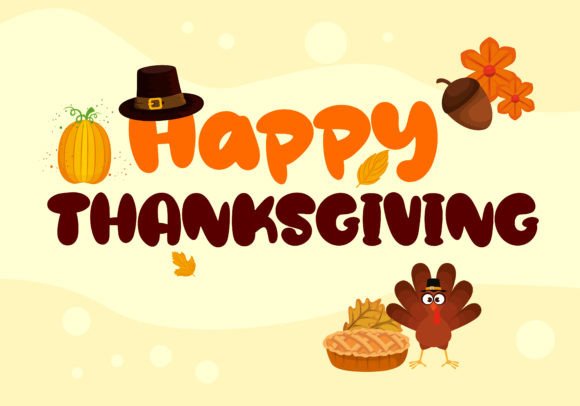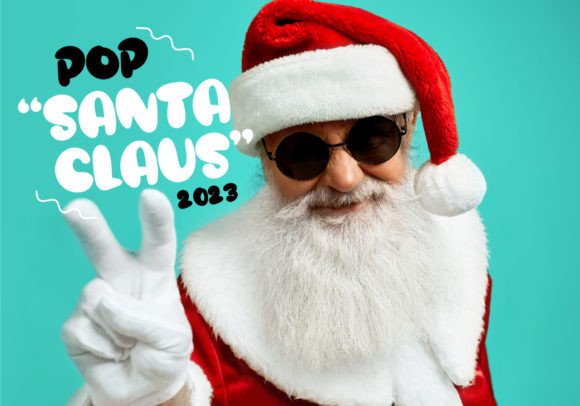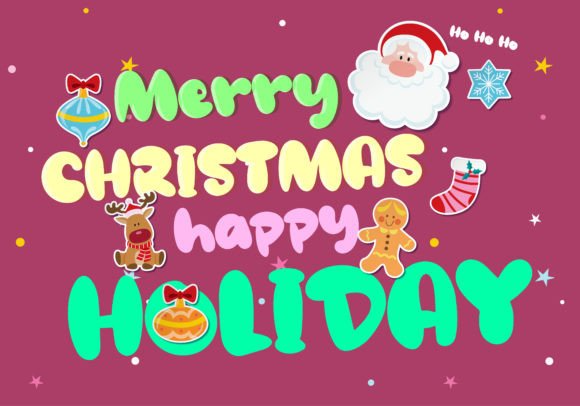
Introduction to Mini Donuts Font
Remember the excitement of creating a DIY craft project as a kid, the thrill of bringing your imagination to life? For many of us, those moments sparked a lifelong passion for creativity and self-expression. As designers, we strive to recapture that sense of wonder and playfulness in our work, and that’s where the Mini Donuts Font comes in.
With its cute, cool, and friendly display style, the Mini Donuts Font embodies the perfect blend of playfulness and authenticity, making it an ideal choice for any children’s activity or school project. Whether you’re working on a design project or need a fun, high-quality font for a creative endeavor, the Mini Donuts Font is a valuable resource that can bring your designs to life.
Key Features of Mini Donuts Font
- High-quality design: Mini Donuts Font is a premium font designed for creative projects and offers a high level of detail and precision.
- Unique, playful style: Mini Donuts Font features a unique, playful style that is perfect for creating eye-catching designs and adding a touch of whimsy to creative projects.
- Perfect for food-related designs: The font’s name and design make it an ideal choice for food-related designs, such as bakery logos, restaurant menus, and food packaging.
Honest Review: Mini Donuts Font
I recently stumbled upon the Mini Donuts Font and was immediately drawn to its playful, whimsical style. This font is perfect for a creative project that needs a touch of sweetness.
Overall, I’m really impressed with the Mini Donuts Font, and I think it’s a great addition to any designer’s toolkit. While it has some limitations, it’s a fun and versatile font that’s sure to add a touch of personality to any design project.
To get the most out of the Mini Donuts Font, use it in creative projects that require a playful and whimsical touch. Consider using it in conjunction with other design resources to create a cohesive and visually appealing design.
The Mini Donuts Font is commonly used in birthday party invitations, wedding decorations, and other creative projects that require a fun and playful touch. It’s also a great resource for designers who want to add a touch of whimsy to their designs.